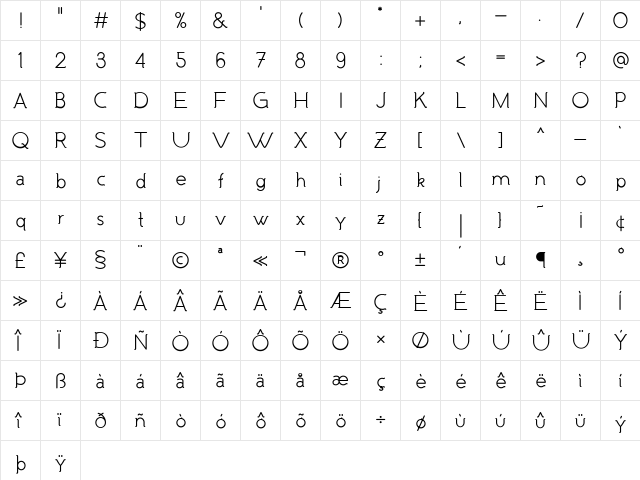
Malandrino Regular
| Foundry | Studio Monocromo, Monofonts. |
| Designer | Andrea Cerboneschi & Claudio Lietti |
Design Context for Malandrino Typeface
Malandrino takes a measured approach to typography — its balanced proportions and neutral character make it a reliable workhorse for both digital and print work.
Pro Tip: Pair Malandrino with a font of contrasting weight or personality to build a more expressive typographic hierarchy.